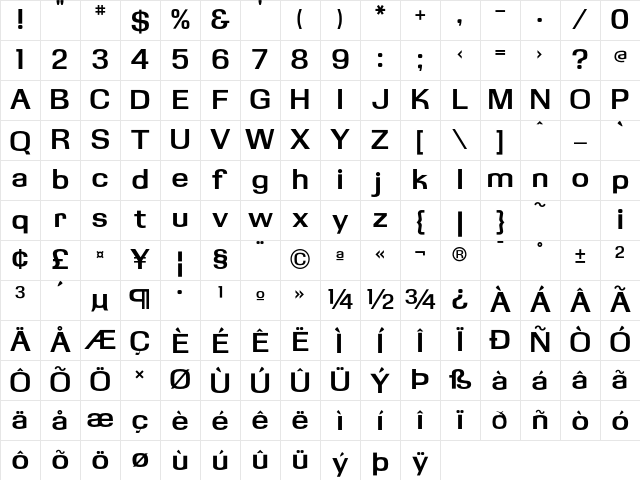
KasseFLF Bold Free Font
KasseFLF Bold
Style: Bold
Design Context for KasseFLF
KasseFLF is a composed and adaptable typeface that performs quietly and consistently across a wide range of design contexts. Its bold stroke weight gives it real presence on the page.